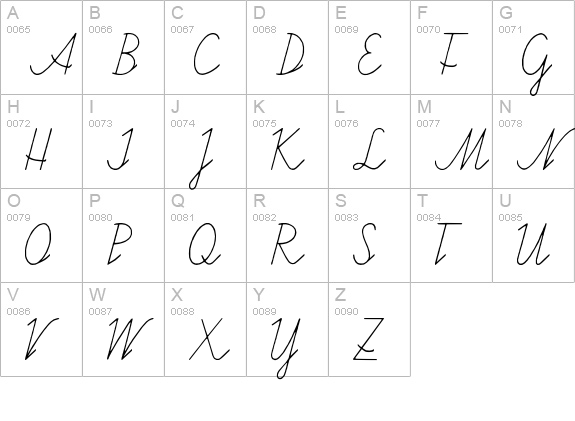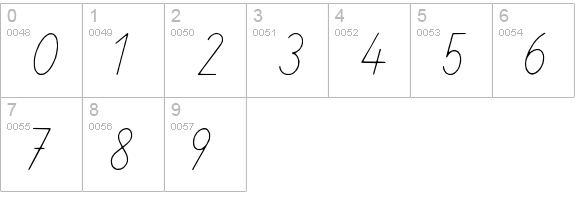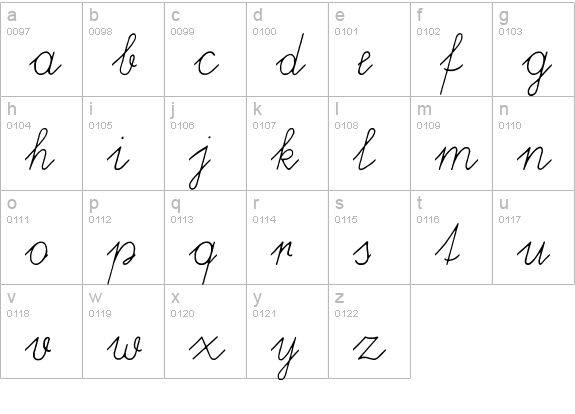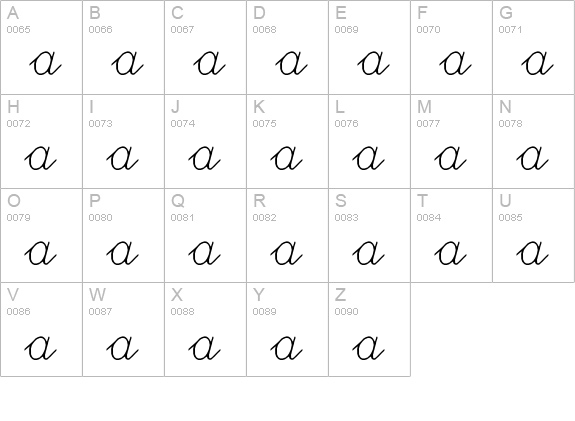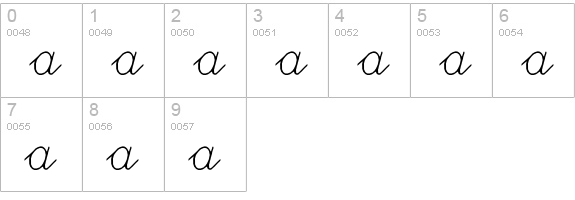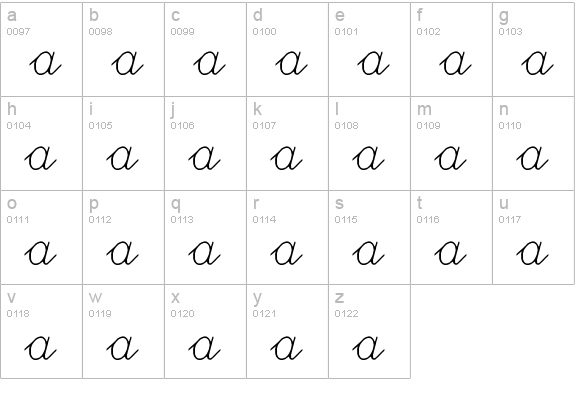
Schulschrift 1995 Font Details
Schulschrift 1995 is a timeless font that effortlessly captures the essence of classical handwriting. With its elegant and fluid strokes, this font brings back memories of school days filled with handwritten notes and exercises. Each letter is meticulously crafted, maintaining the perfect balance between legibility and charm. Schulschrift 1995 is a versatile font that can be used in a variety of projects, from educational materials to personal correspondence. Its clean lines and well-defined curves make it easy to read, while its nostalgic appeal adds a touch of warmth and familiarity to any design. One of the best features of Schulschrift 1995 is that it is freely available to download at FontsMarket.com. This means that anyone can access and use this beautiful font without any restrictions. Whether you're a student looking to add a touch of nostalgia to your school project or a designer aiming to create a vintage-inspired masterpiece, Schulschrift 1995 is the perfect font for you. So, why wait? Head over to FontsMarket.com and download Schulschrift 1995 today. Unleash your creativity and let this timeless font transport you back to the cherished days of handwritten communication.